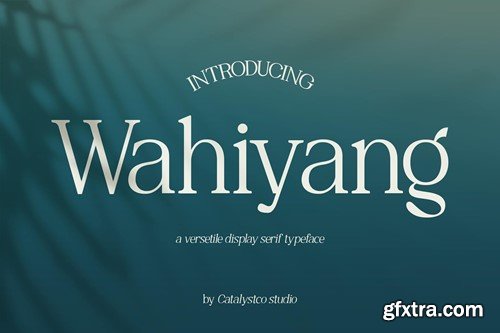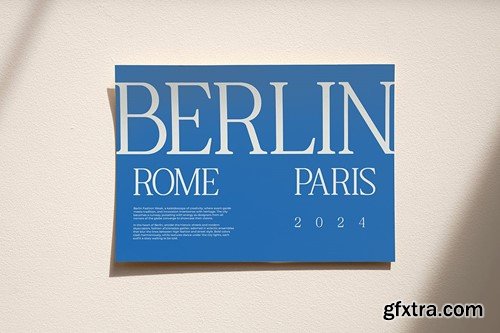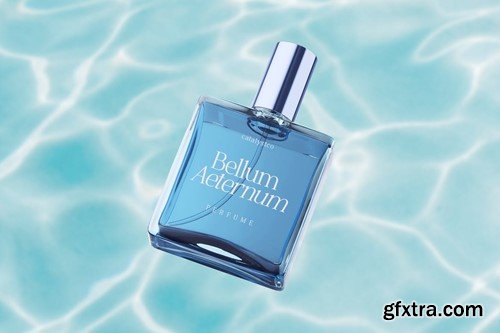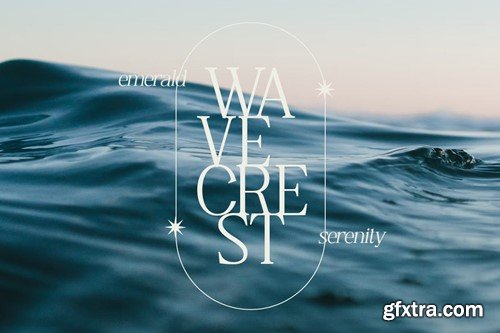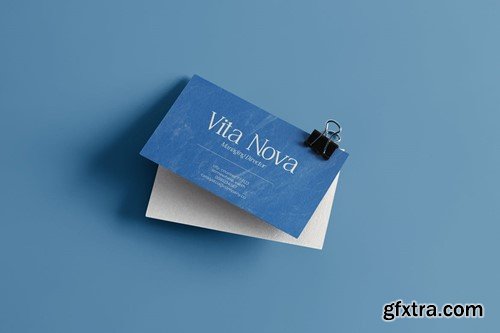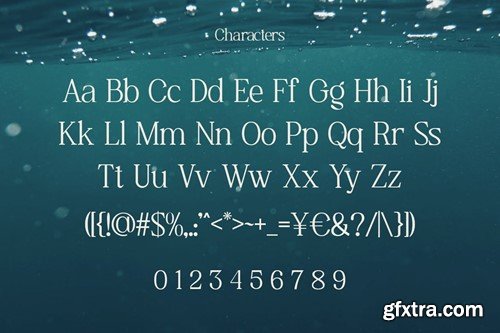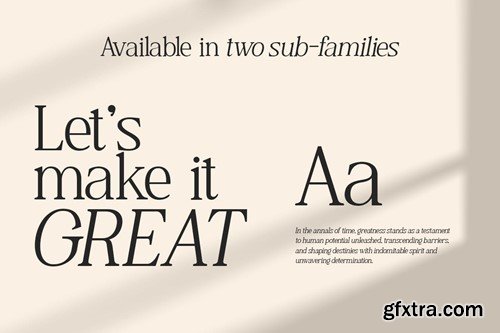
Wahiyang Display Serif Font CGPJAV5
Wahiyang Display Serif Font
Wahiyang Display Serif Font typeface excellent used for the manufacture quote text, logotype, header magazine, and many more.
• Uppercase & Lowercase
• Ligatures & Alternate
• Numeral & Punctuations